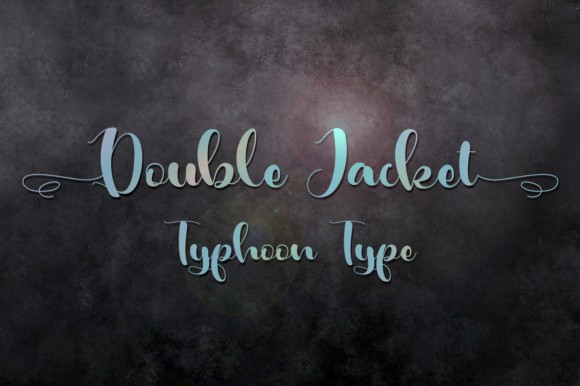
This font perfect for logos, name tags, advertising, product packaging, clothing, social media & greeting cards.
Type ( before the word to get the beginning swash and type ) after the word to get the end swash. Example : (Double Jacket).